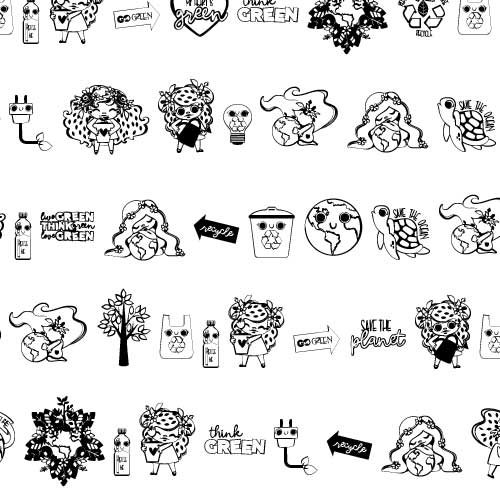
DB Mother Earth - DB
This adorable doodlebat font features 26 images of Mother Earth with beautiful flower themed imagery perfect for Earth Day, Mother's Day, cards, crafts, classrooms, planner stickers, gifts, decor, scrapbook pages, and more!